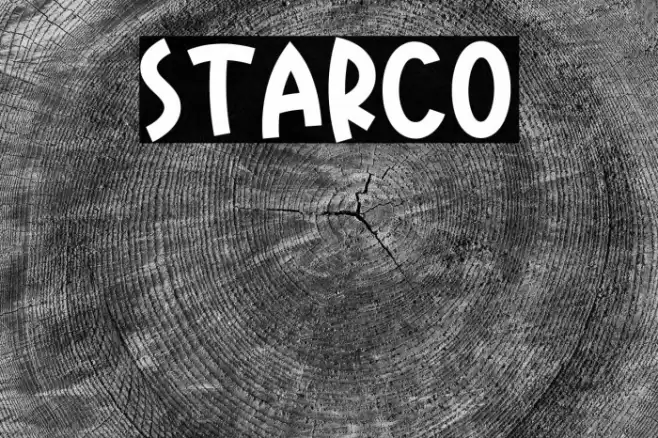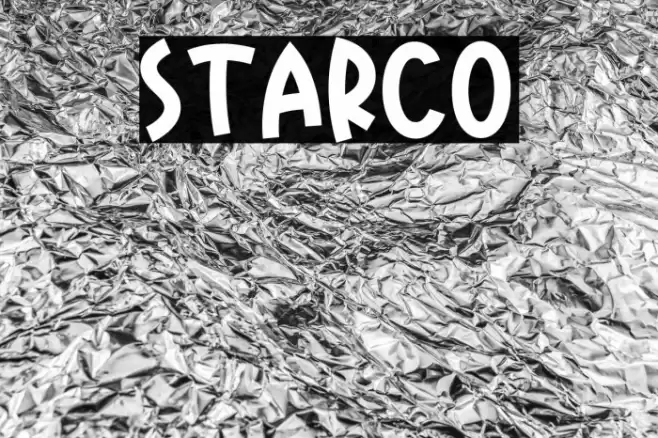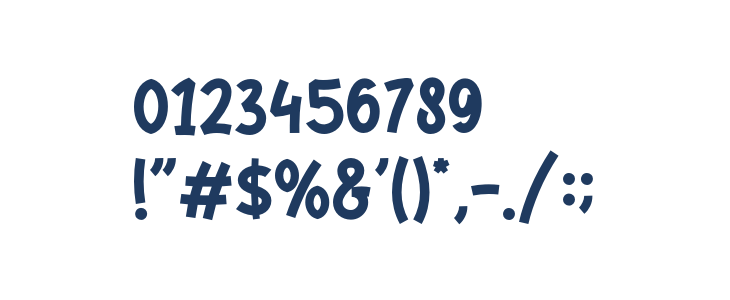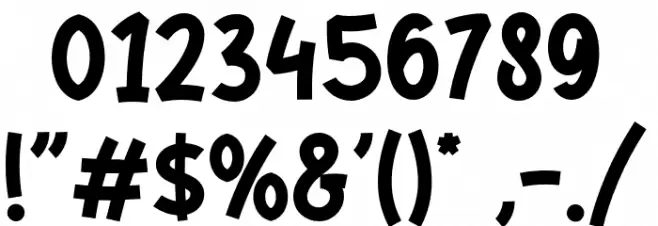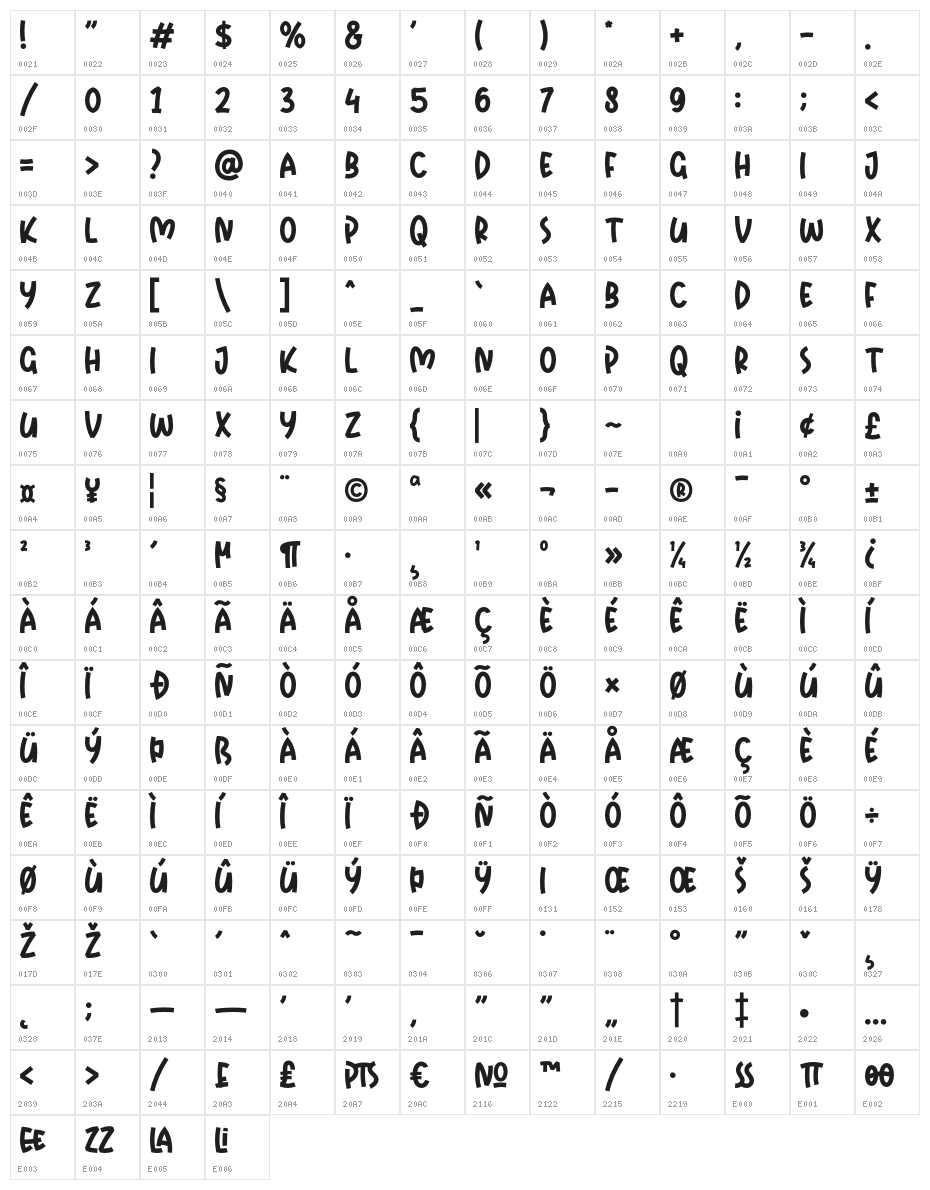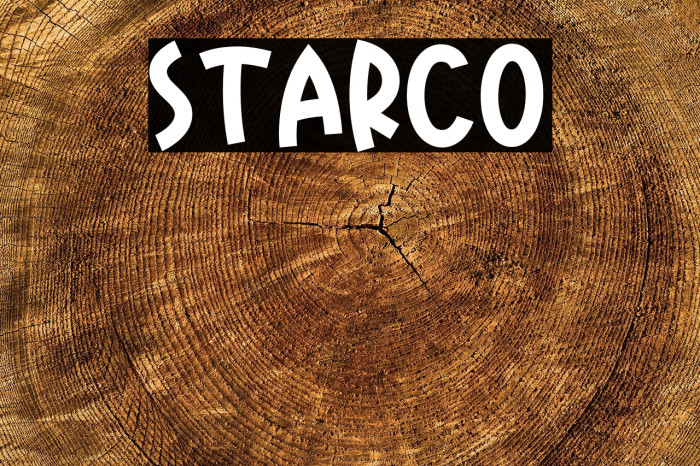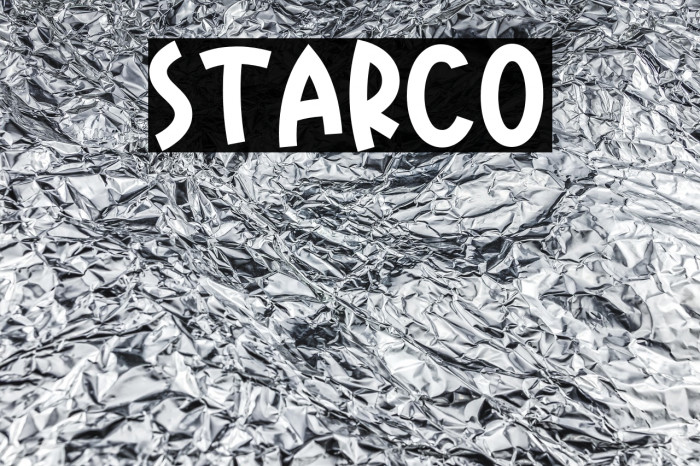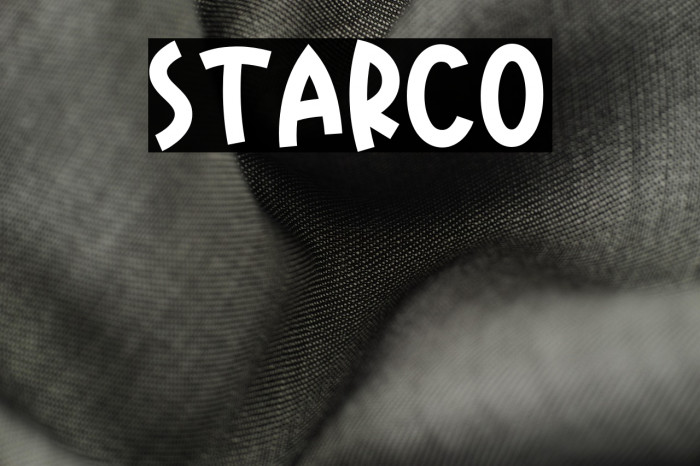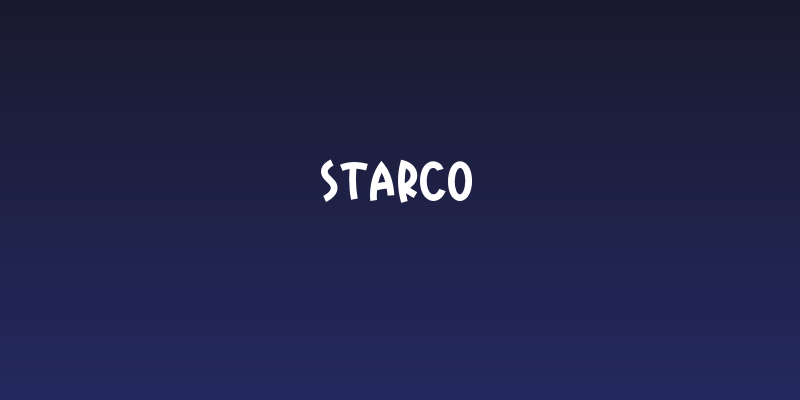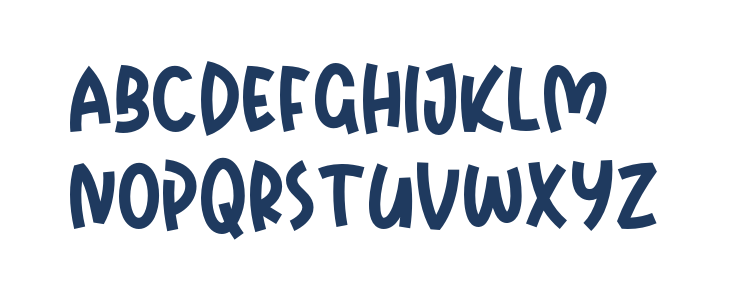
Starco Font
Starco Description
This font exhibits a playful and bold style, characterized by its thick, rounded strokes and slightly irregular shapes that give it a hand-drawn appearance. The letters are designed with a sense of movement and energy, making them stand out with a lively and informal vibe. The uppercase and lowercase letters maintain a consistent style, while the numerals and special characters complement the overall aesthetic. The font's unique personality makes it suitable for creative and fun projects, where a touch of whimsy is desired.
A playful, bold, and hand-drawn style font with rounded strokes from Uncategorized fonts.
- Proposed Projects: Ideal for children's books, comic strips, playful branding, and event posters.
- Overall Style: Playful, Energetic, Informal